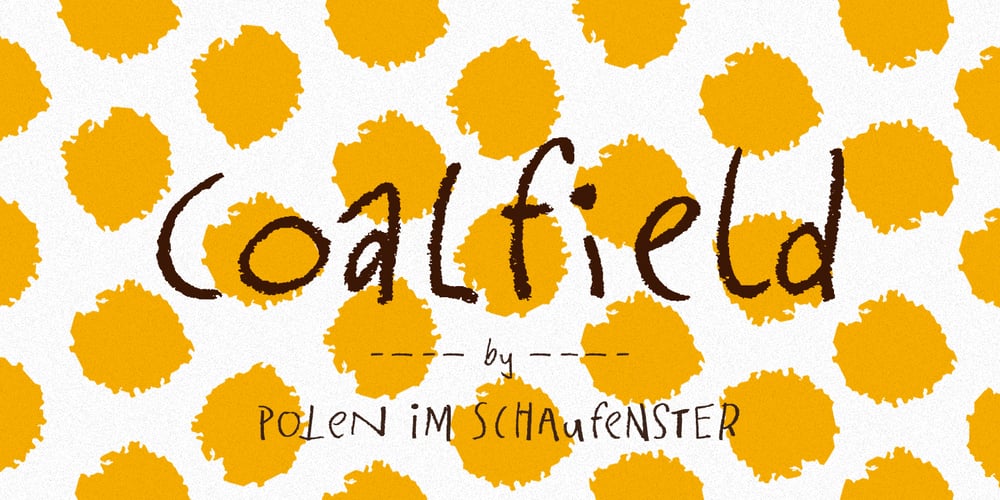
PiS Coalfield Font Family was designed by Hannes Siengalewicz and published by PiS. PiS Coalfield contains 1 styles and family package options. Written with a blunt graphite pen, PiS Coalfield features a scruffy scribbled look, loosely inspired by the expressive handwriting on various posters by Sister Corita Kent, an influential pop artist experimenting with serigraphs in the ’60s. There is one set of regular and 4 sets of alternate glyphs for each basic letter programmed to cycle through automatically with the contextual alternate feature (which makes 5 possible versions of each letter). You can also hand-pick the 4 alternate sets if you prefer that of course! A super-lively handwritten look is guaranteed, readability is given in display but also in smaller sizes too! Use it for your organic tofu brand, children’s books or that hip sweet coffee shop around the corner!